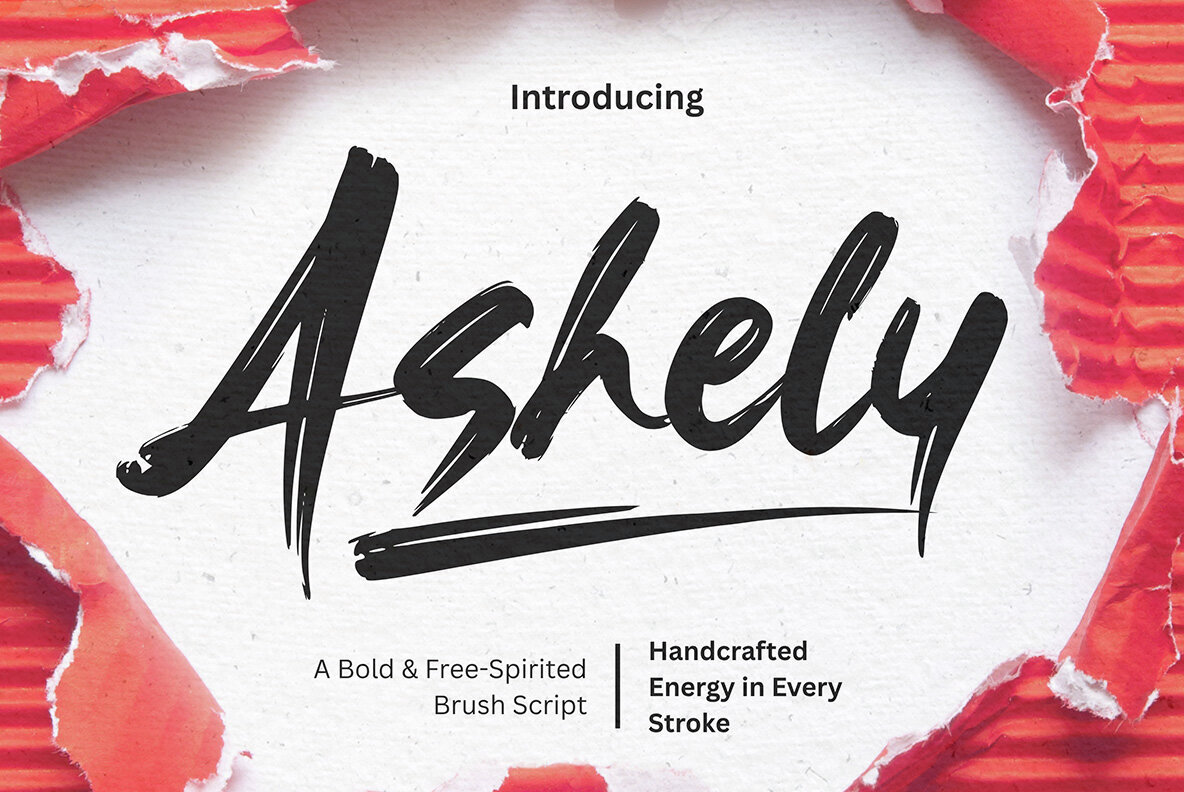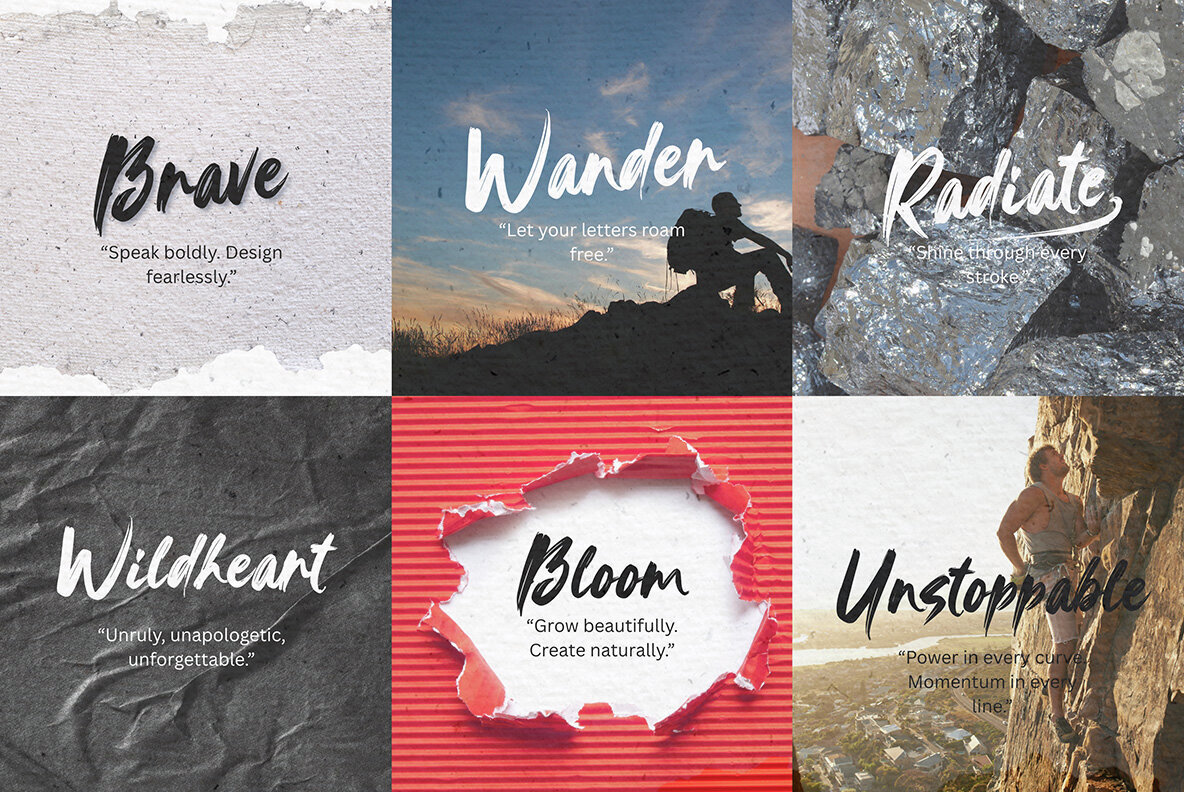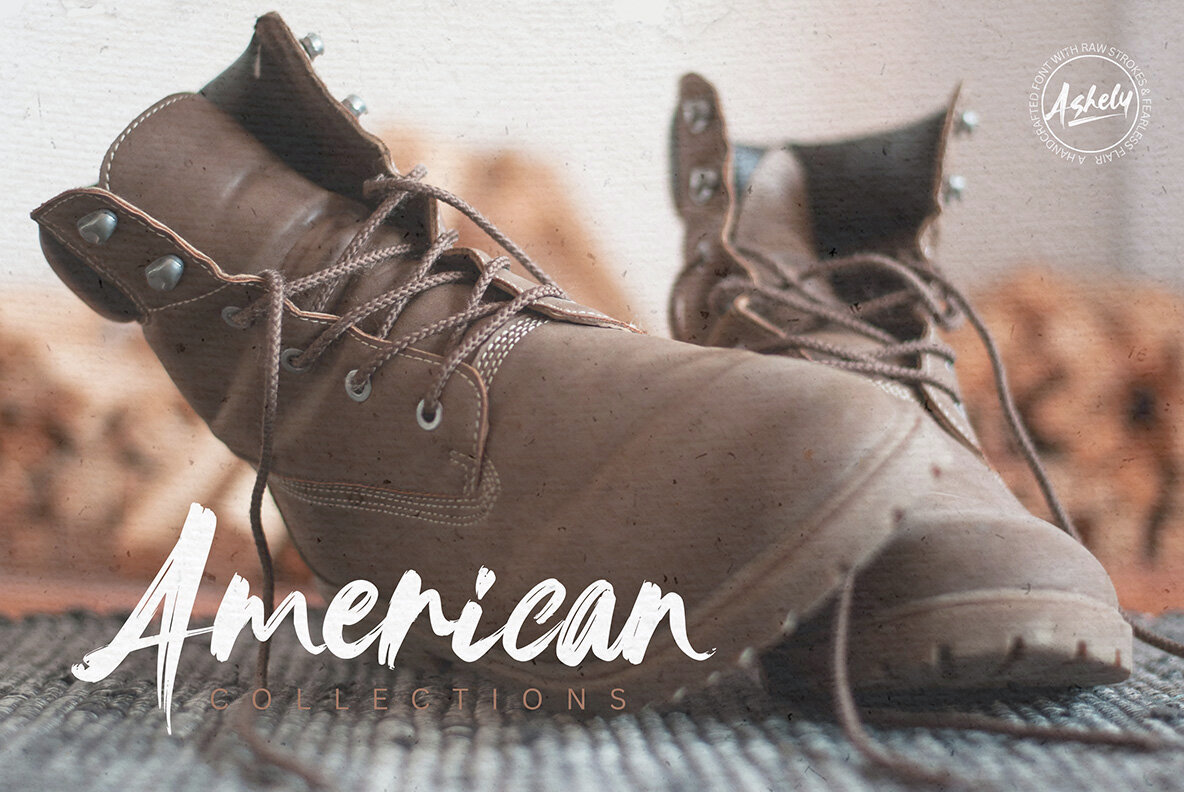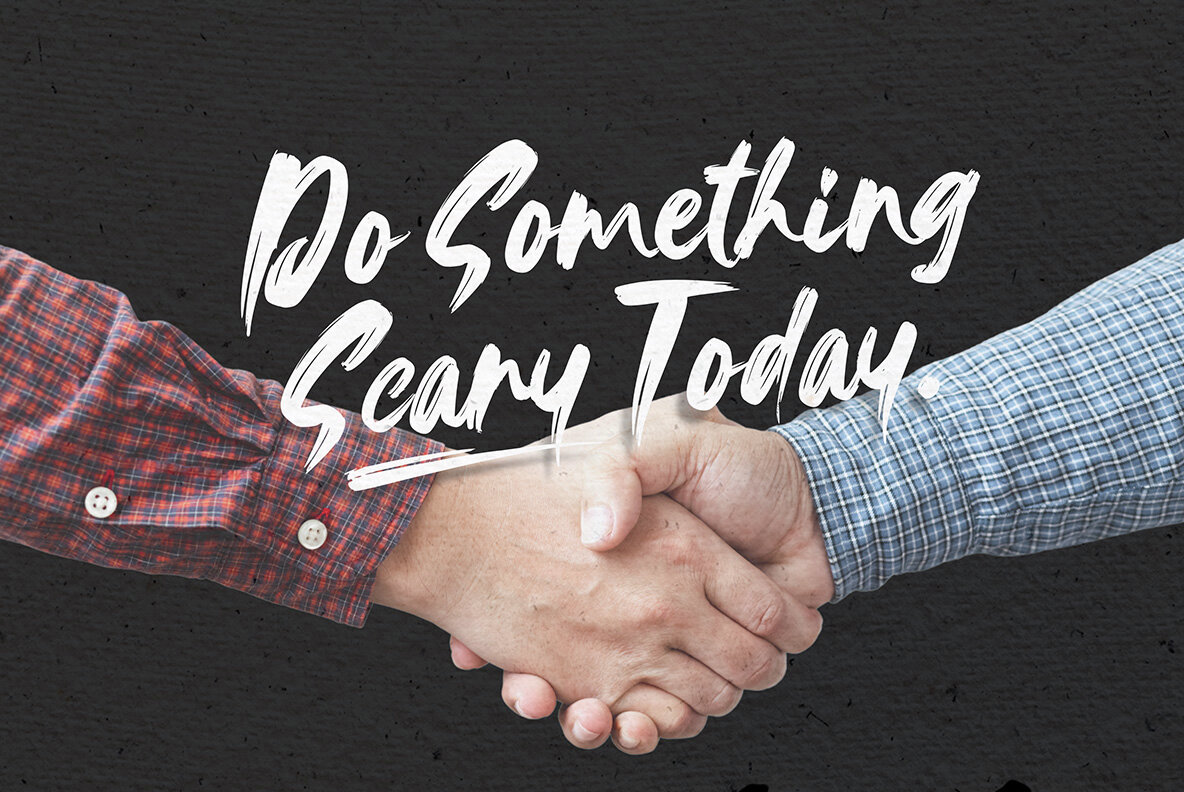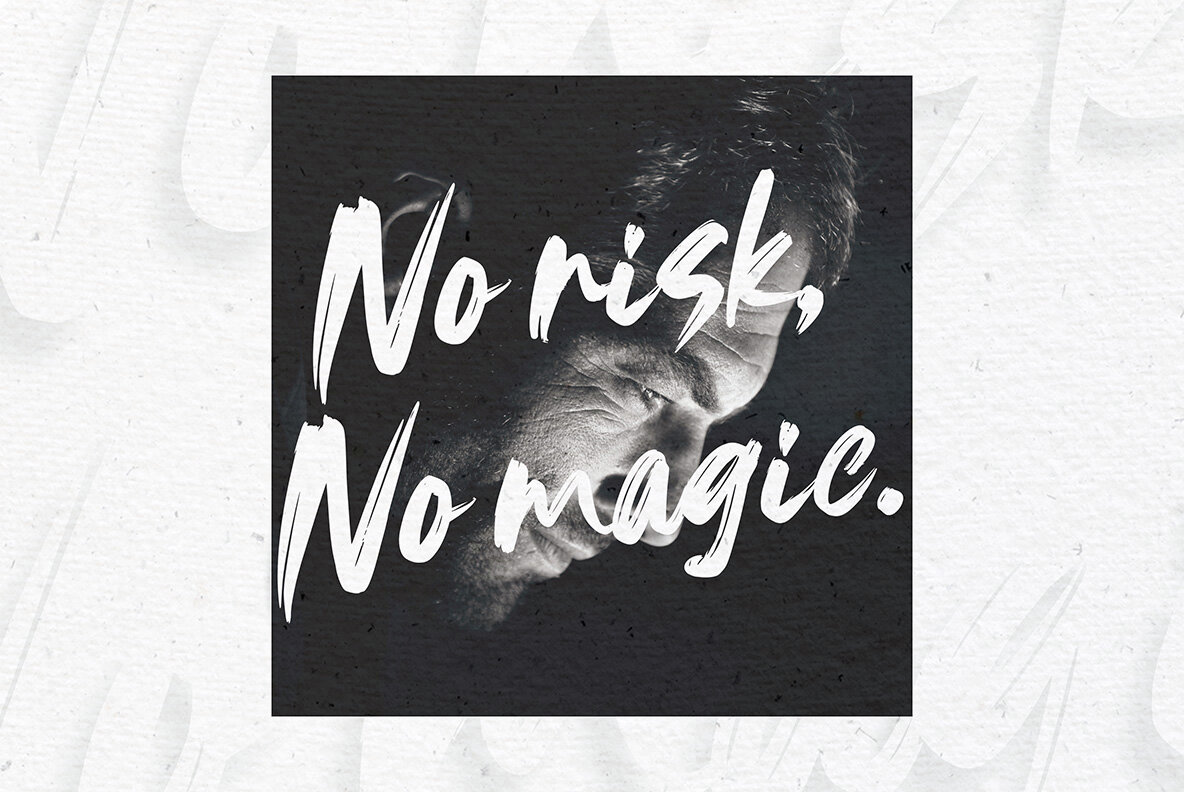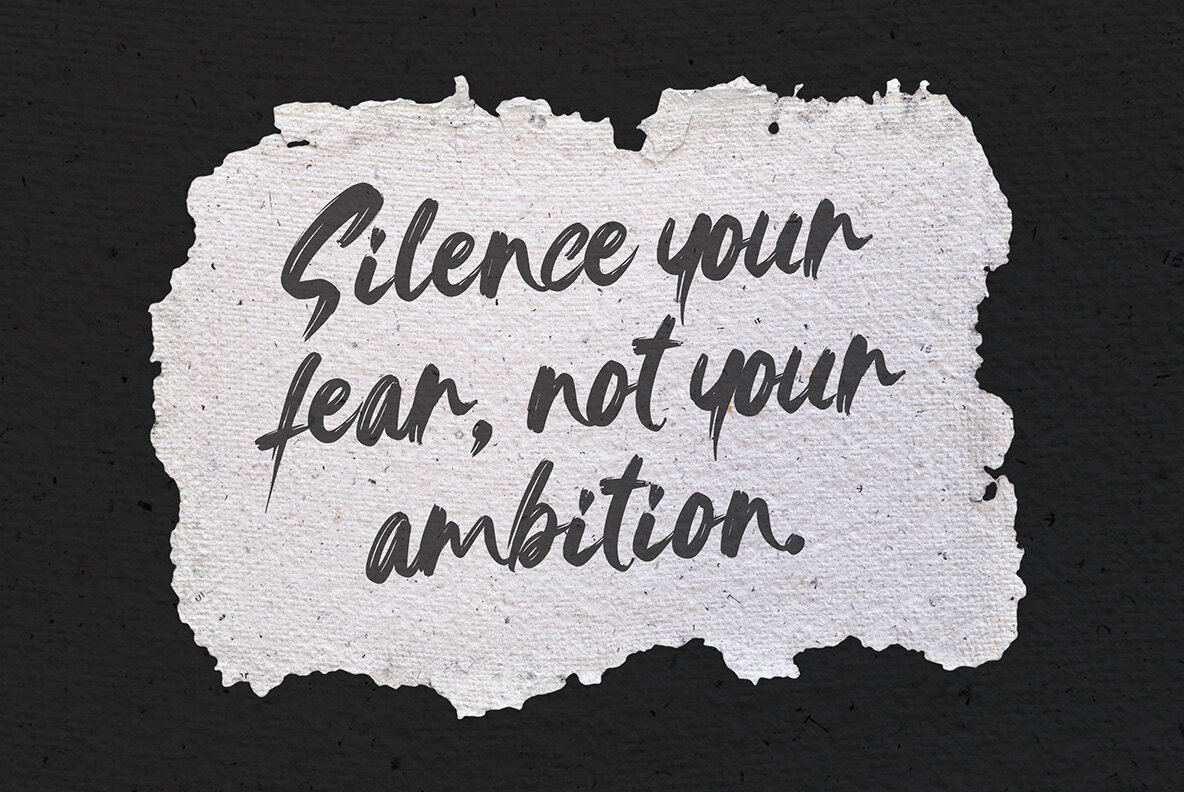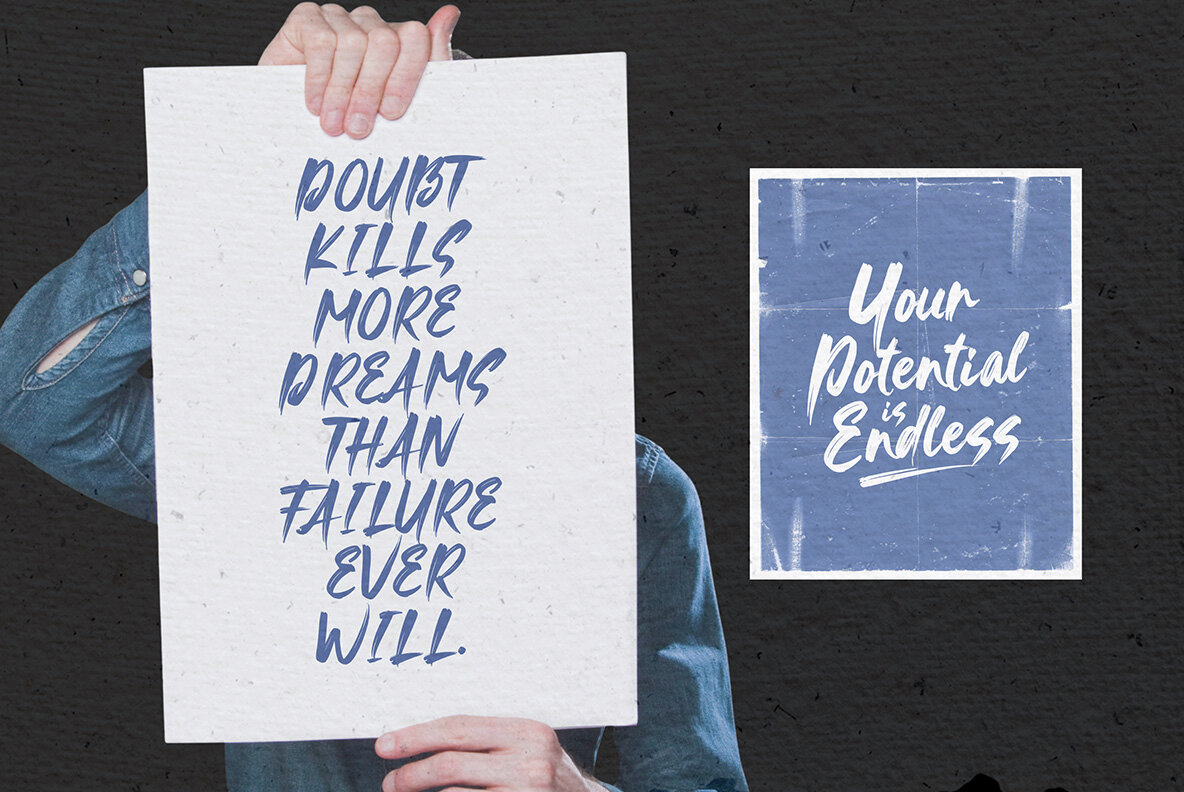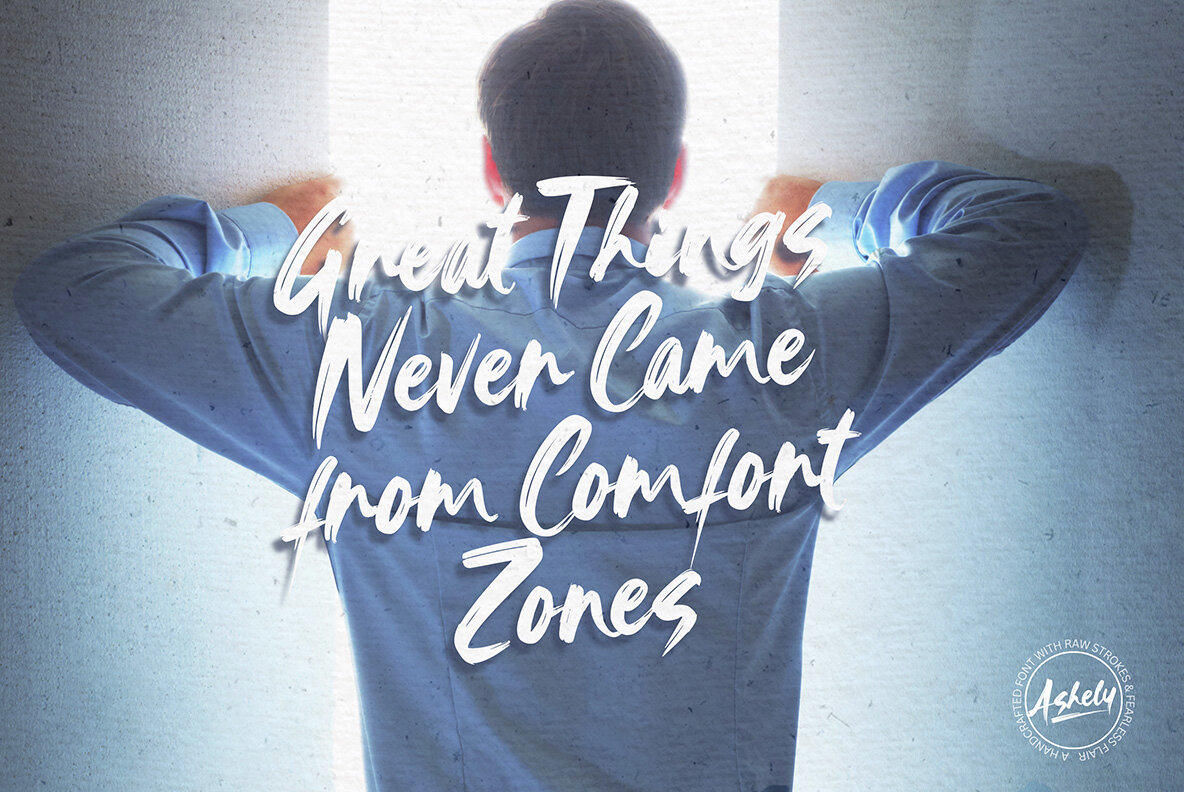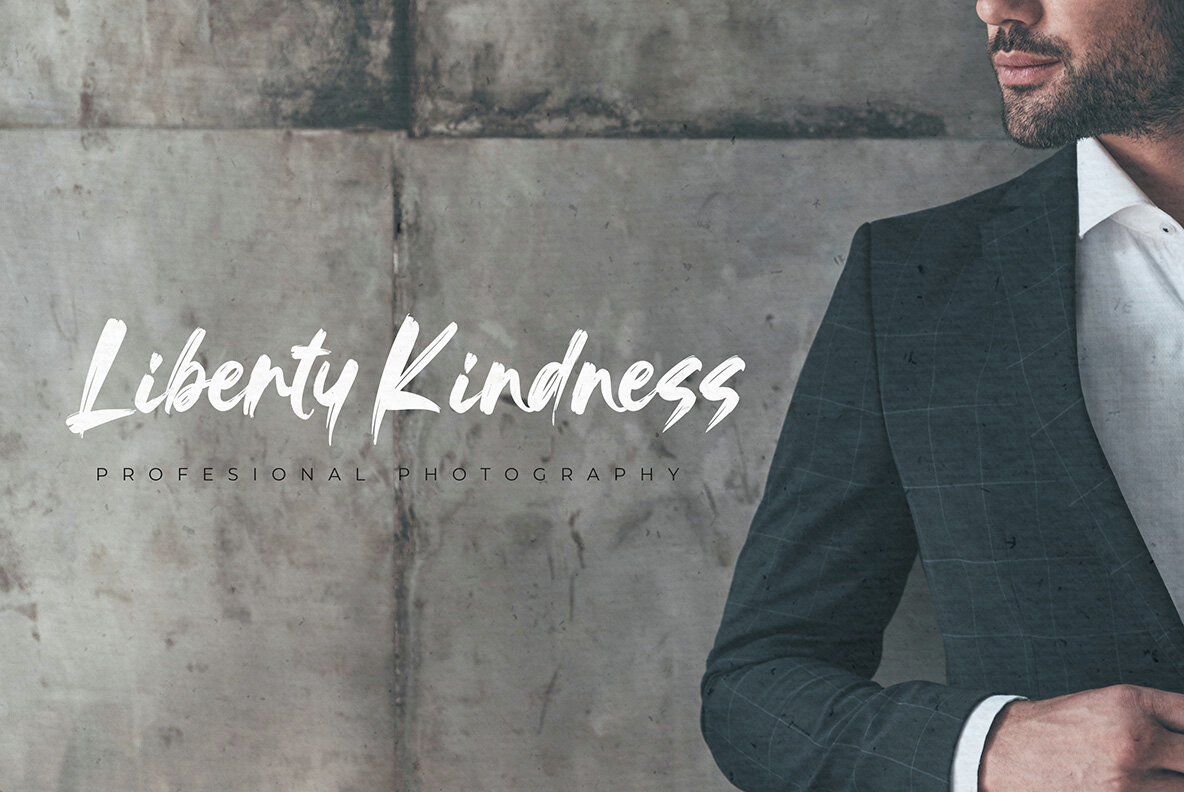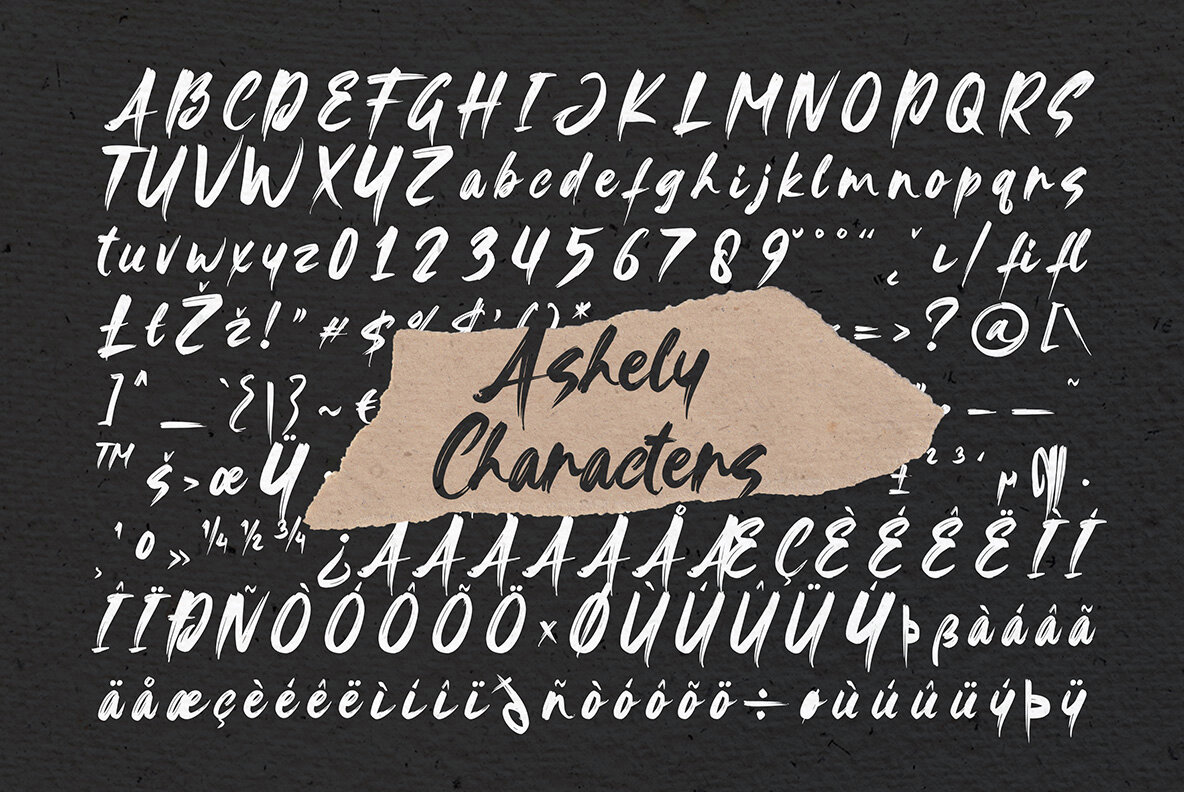
Ashely Font
Ashely
Meet Ashely, a dynamic brush script font exuding effortless style. Designed to emulate authentic hand-painted strokes, Ashely infuses natural texture and fluid movement into every letter. Ideal for designs aiming to captivate with character, such as bold branding, product packaging, and eye-catching social media content. Ashely adds a unique flair to posters and merchandise, ensuring your words convey motion and personality. Embrace creativity with Ashely—where each stroke embodies boldness, freedom, and style.Ashely: Bold & Free-Spirited Brush Script